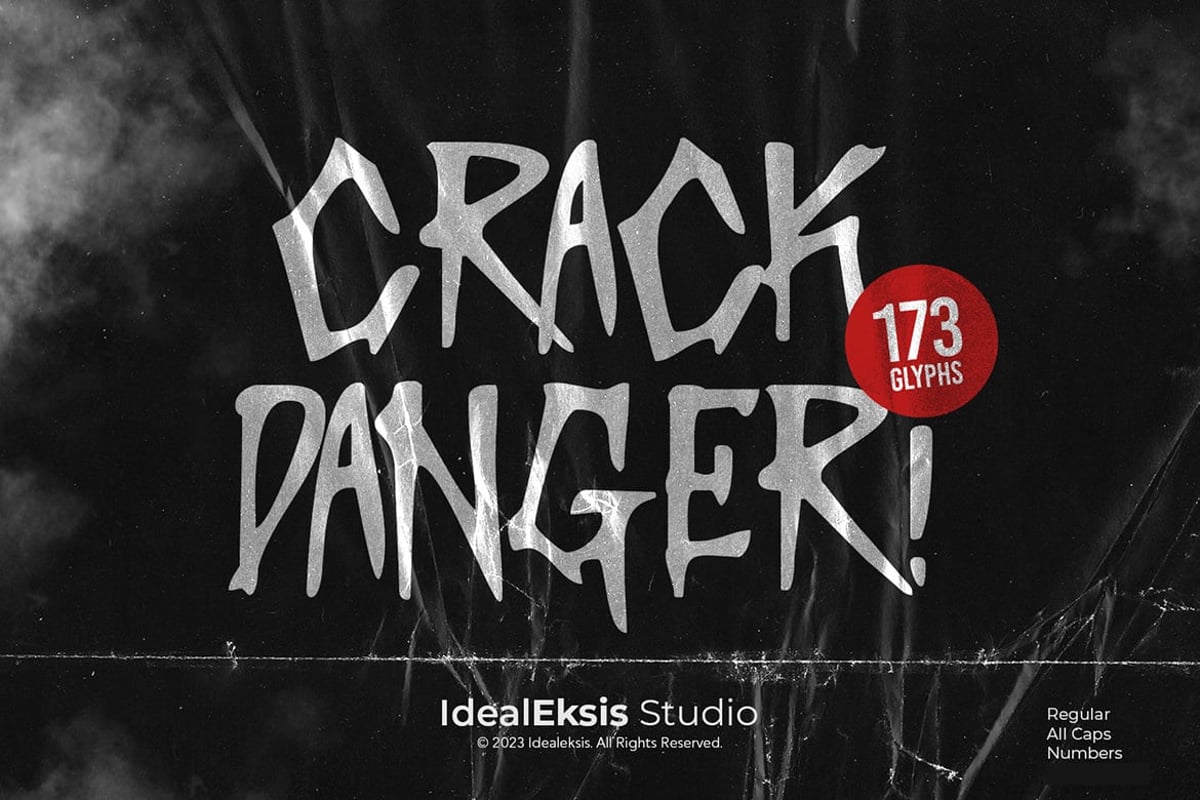
Crack Danger – Horror Font
Unleash spine-chilling horror vibes with this menacing typeface designed to evoke fear and darkness.
Crack Danger font seamlessly blends elements of terror and intrigue, making it an ideal choice for projects that demand an atmosphere of suspense and foreboding. This haunting typeface features meticulously crafted letters with jagged edges, irregular strokes, and unsettling angles that contribute to an overall feeling of unease and dread.
- Uppercase characters only
- Standard glyphs
- Multilingual accent support